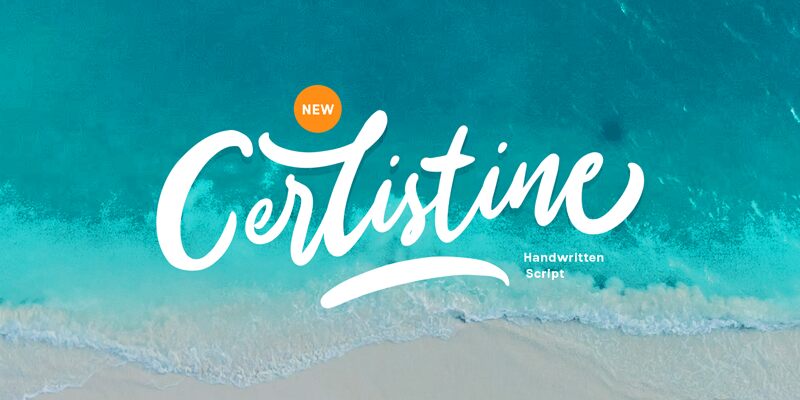
Cerlistine, a stunning calligraphic brush font designed by Letterhend Studio, will make your designs pop with its bold strokes and flowing curves. Perfect for creating eye-catching titles, logos, posters, and invitations that demand attention. Cerlistine's elegant aesthetic is versatile enough to elevate any project - from fashion branding to restaurant menus to wedding stationery. This font will add a touch of sophistication and uniqueness to your designs that will leave a lasting impression on your audience. Try out Cerlistine today and watch as your designs come to life with this dynamic calligraphic brush font!